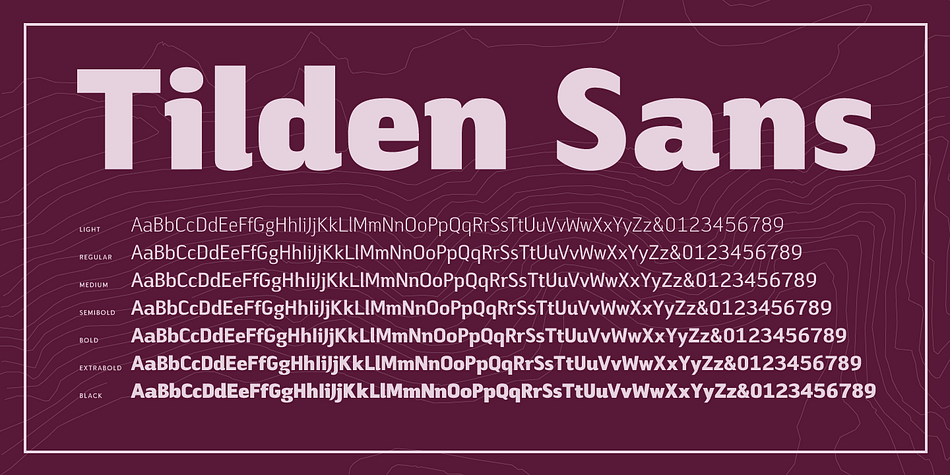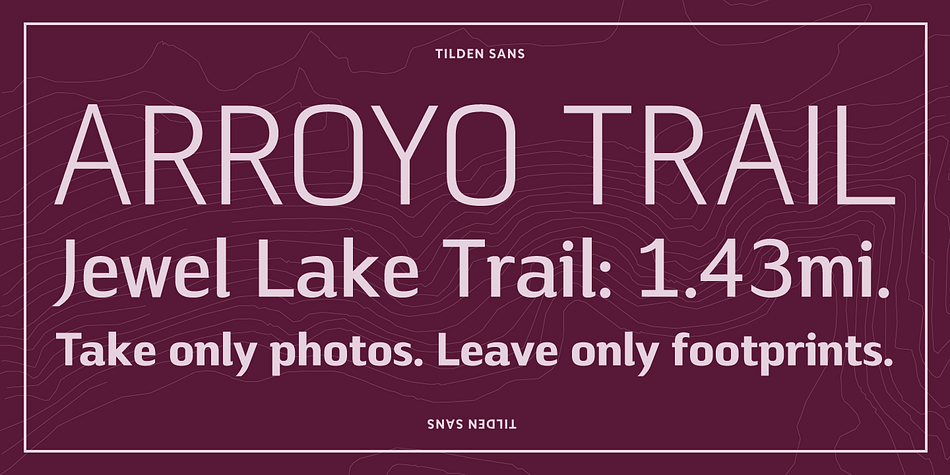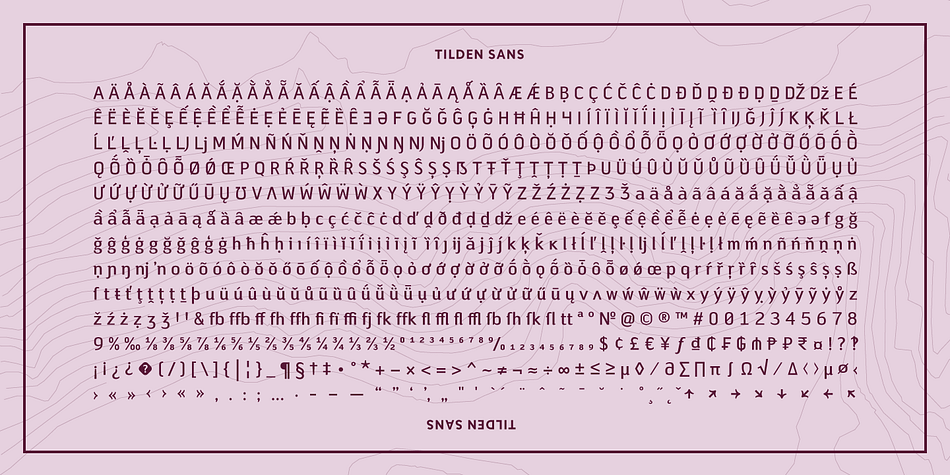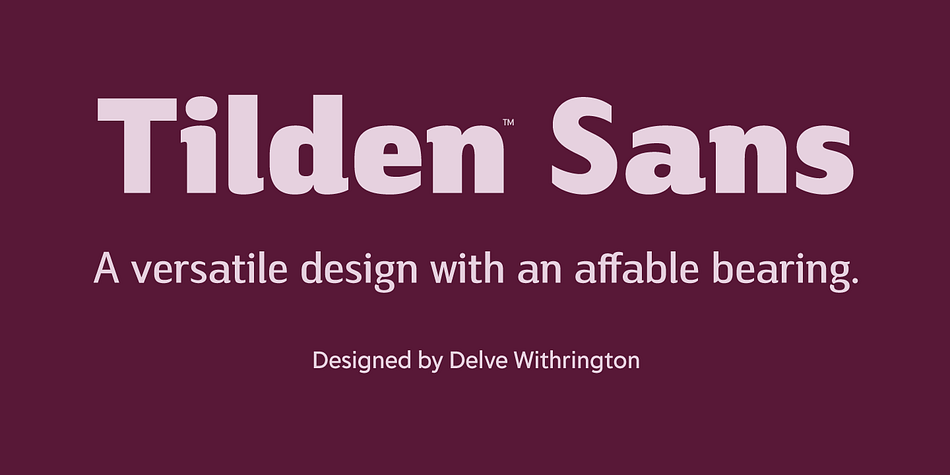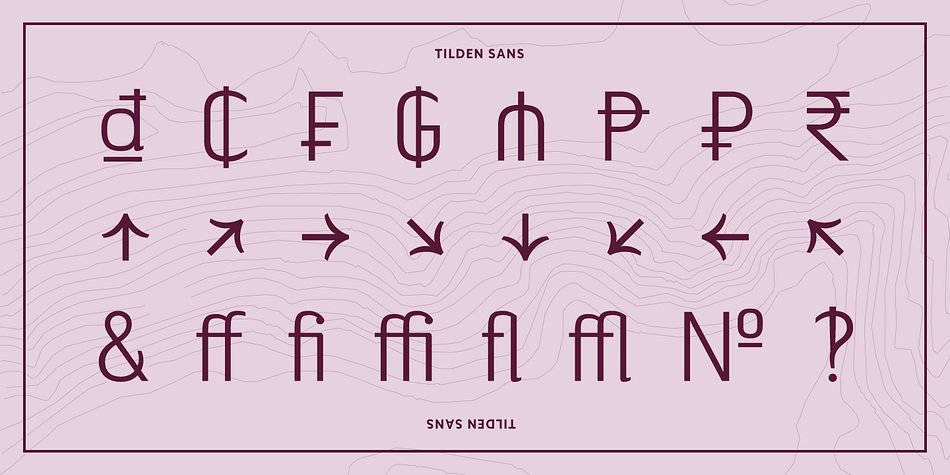
Designed by Delve Withrington, Tilden Sans is a sans serif font family. This typeface has seven styles and was published by Delve Fonts.
Contemporary, clean, and friendly, Tilden Sans economical square-ish forms are low contrast and have a generous x-height. Curvilinear strokes like those in the capitals C or S, and many lowercase letters feature incised terminals, offering a measure of distinction from other sans serifs, without sacrificing legibility. All of these qualities work in unison to make this typeface a pleasure to use and read.
The Tilden Sans family has seven useful weights ranging from an elegant Light style to a Black one that refuses to take itself too seriously. For language support, Tilden Sans boasts a glyph repertoire of over 900 glyphs covering over 225 languages. This versatile typeface performs brilliantly in a host of sizes. The Regular and Medium weights can be used at text sizes, while the Light and Black weights are great for display size settings.